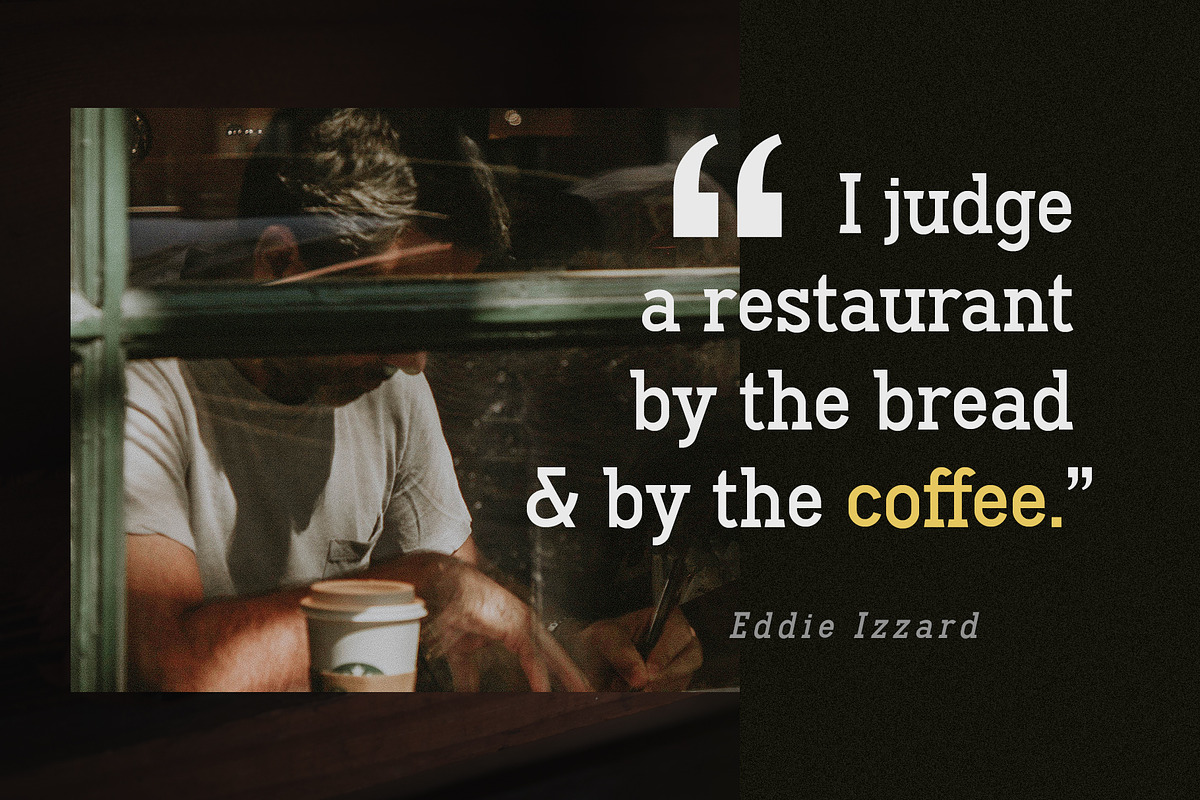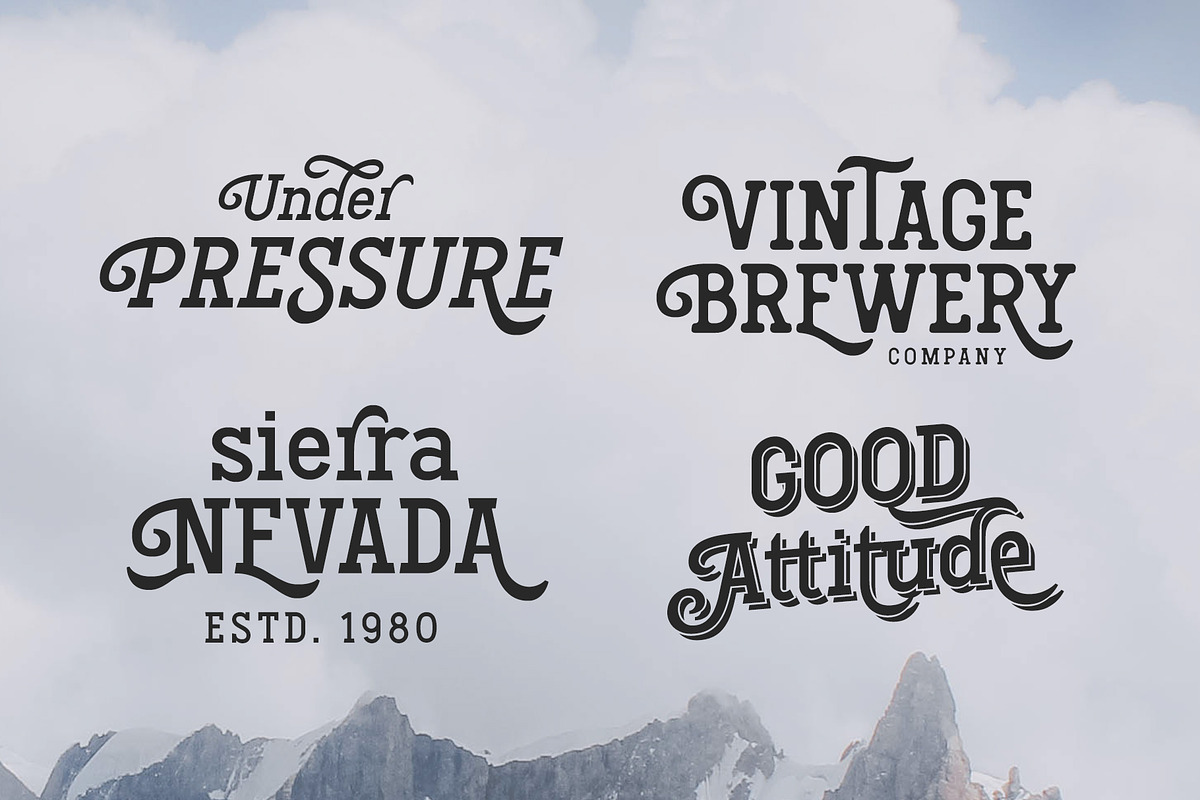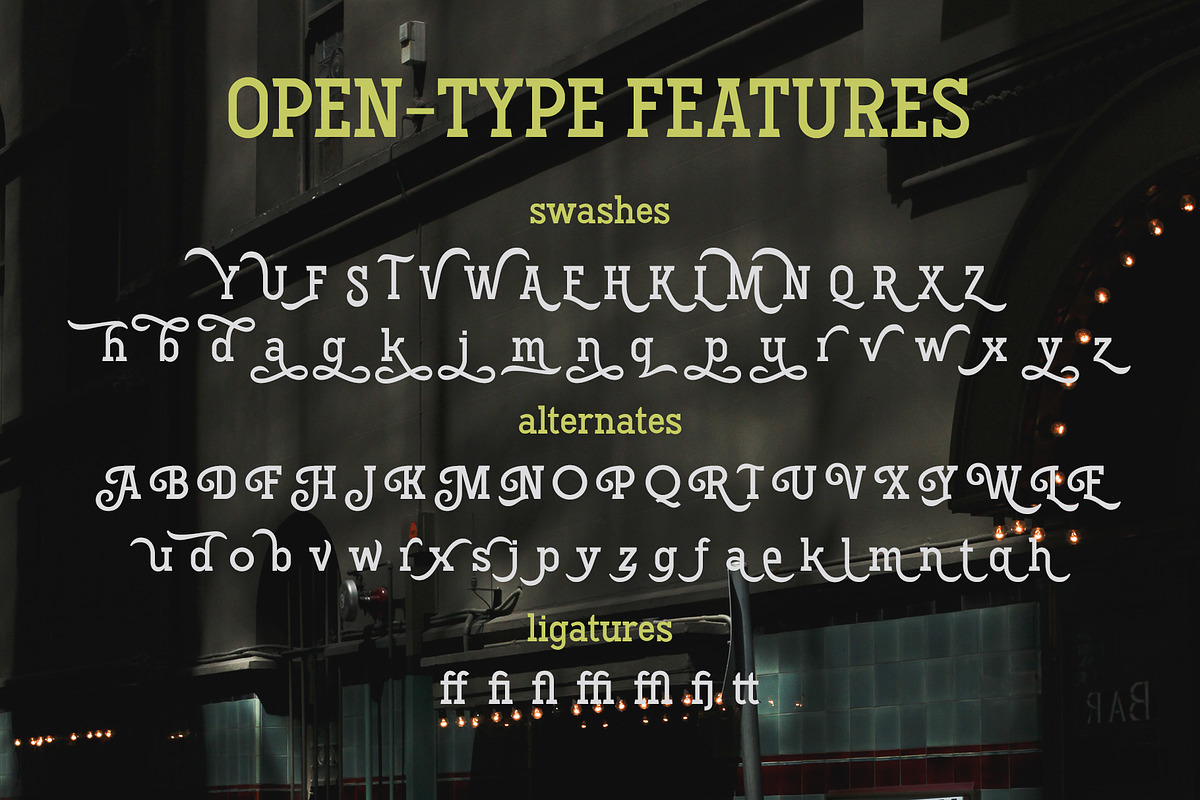
Hodgeson
Hodgeson is a calligraphic slab serif font, which made with combinations of custom lettering and Egyptian style. Available in 4 styles that you can use it for many purposes, as a combination or split according to the design styles. Complete with OpenType features, that allows you to give more calligraphic looks! There are Normal, Italic, Shadow and Round style.
There are about 400+ glyphs containing OpenType features such as Alternates, swashes and standard ligatures. Perfect for logotype, general store, embroidery, display, t-shirt design, and quotes. Hodgeson has good readability that also useful for an editorial design like magazine, brochure, and newspaper.